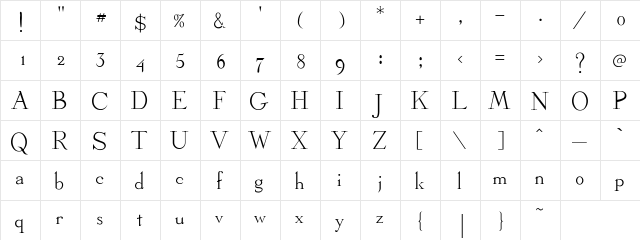
Keats Regular
Design Context for Keats Typeface
Keats offers clean, dependable letterforms without strong stylistic allegiance, making it a practical choice for designers who need flexibility.